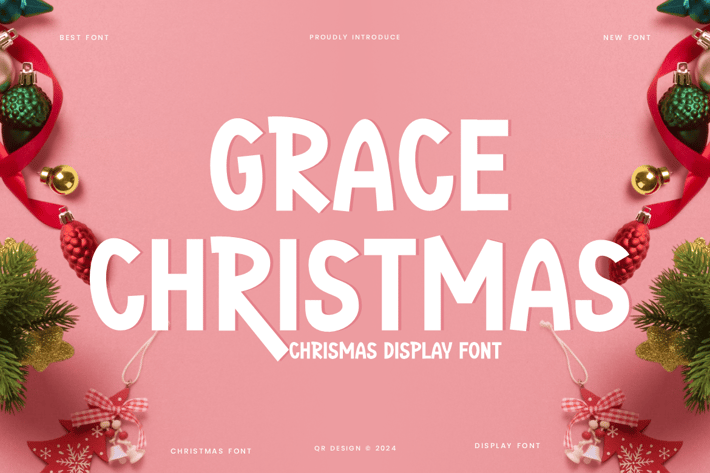
Grace Christmas Font
Grace Christmas Font is a modern and authentic display font.
The font is suitable for any branding project like poster, logo, Christmas, and many more.